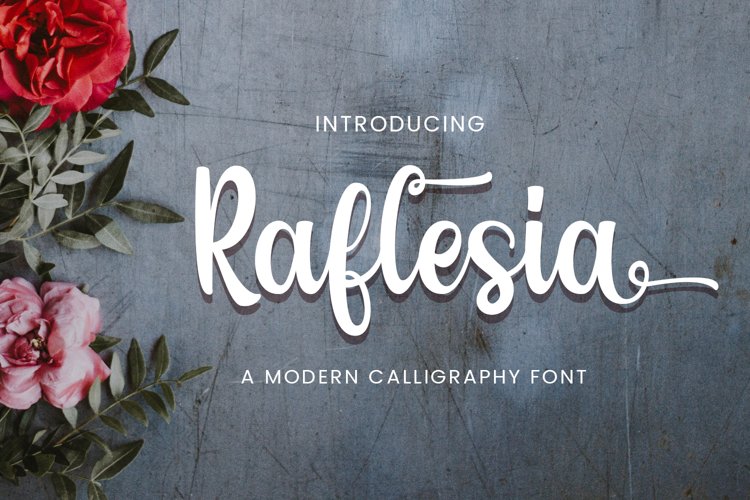
Raflesia
Introducing Raflesia - A Modern Calligraphy Font
Raflesia, just as sweet as flowers, flawless as you! A perfect font for your minimal yet beautiful website, social media branding, Pinterest banners, printed invitations, and more!
Raflesia fonts, like a fragrance, speak your heart, your audience’s, clients and guests and people around you!